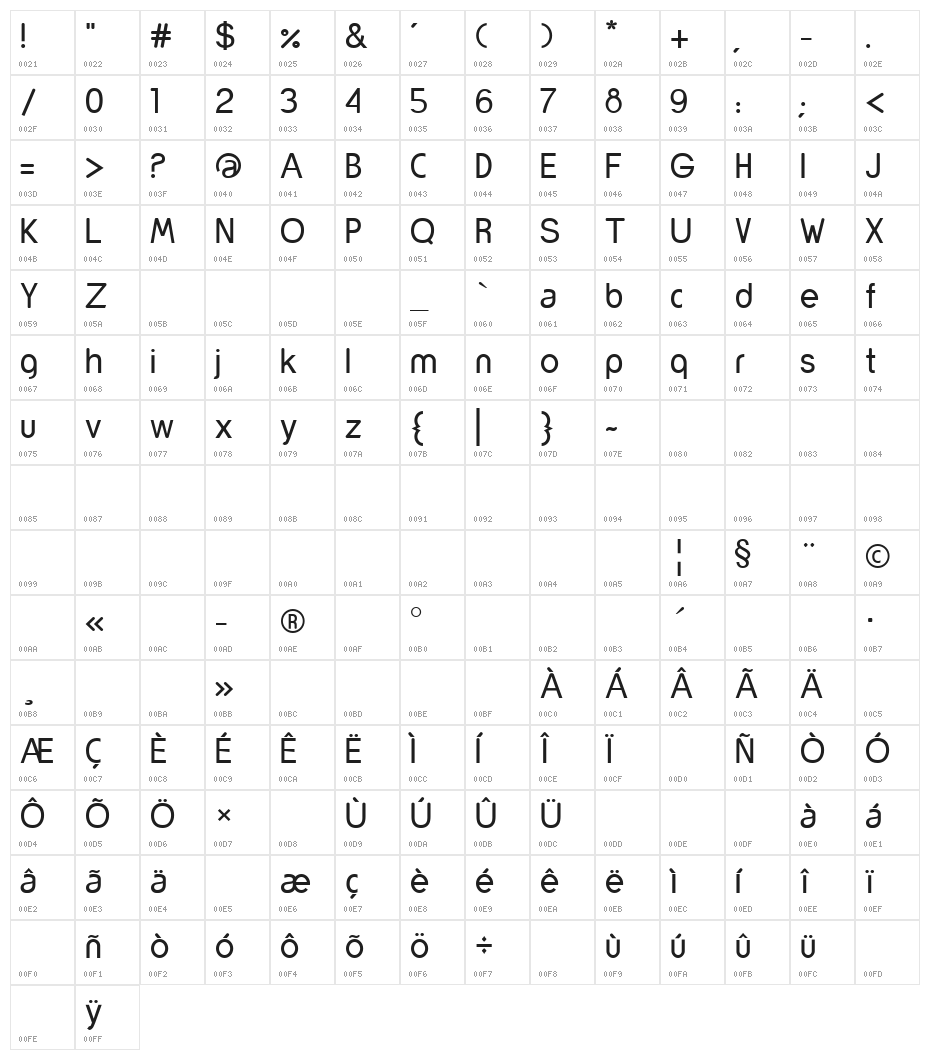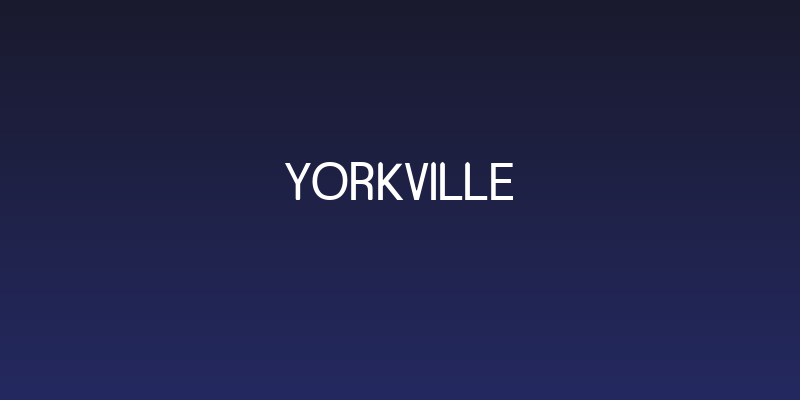
yorkville Font
yorkville Description
This font features a clean and modern sans-serif design, characterized by its geometric shapes and uniform stroke widths. The letters are well-proportioned, with a consistent height and width that provides a harmonious appearance. The uppercase letters are bold and assertive, while the lowercase letters maintain a friendly and approachable look. The numerals are clear and legible, making them suitable for various applications. Special characters are designed with the same attention to detail, ensuring they blend seamlessly with the rest of the typeface.
| Proposed Projects | Ideal for branding, advertising, digital interfaces, and editorial design. |